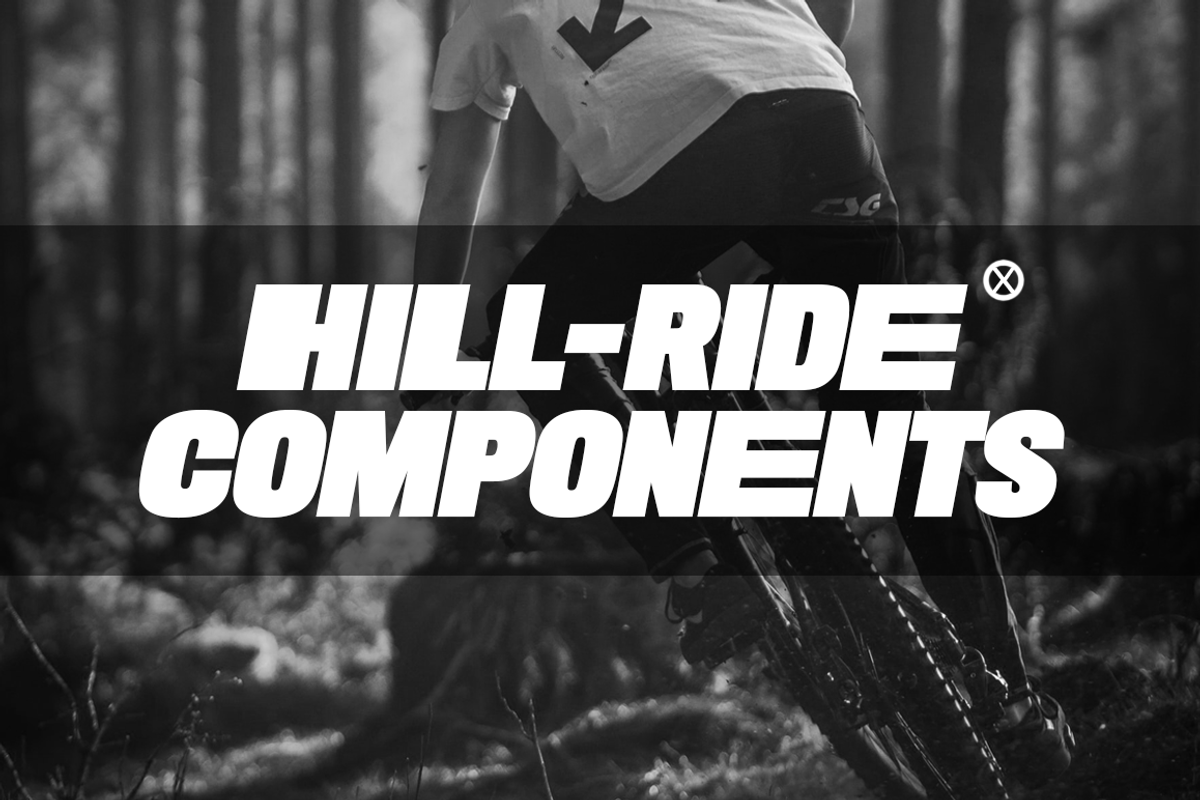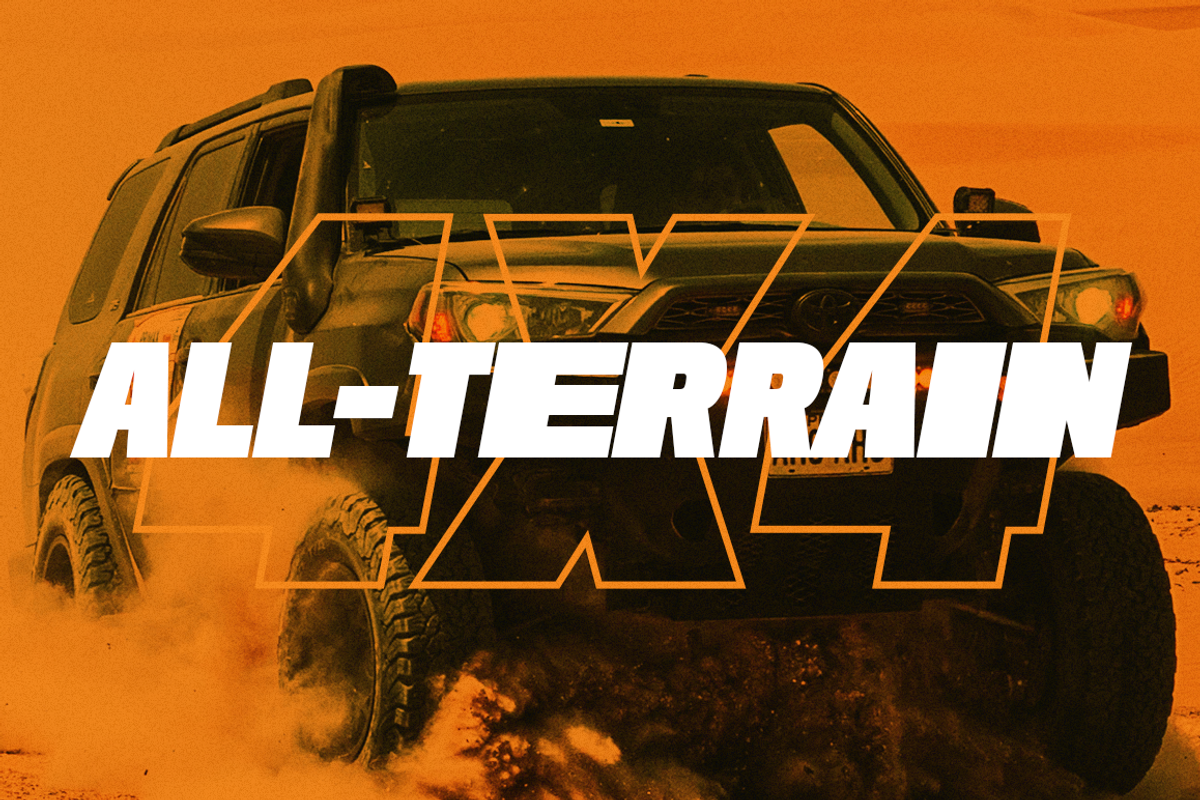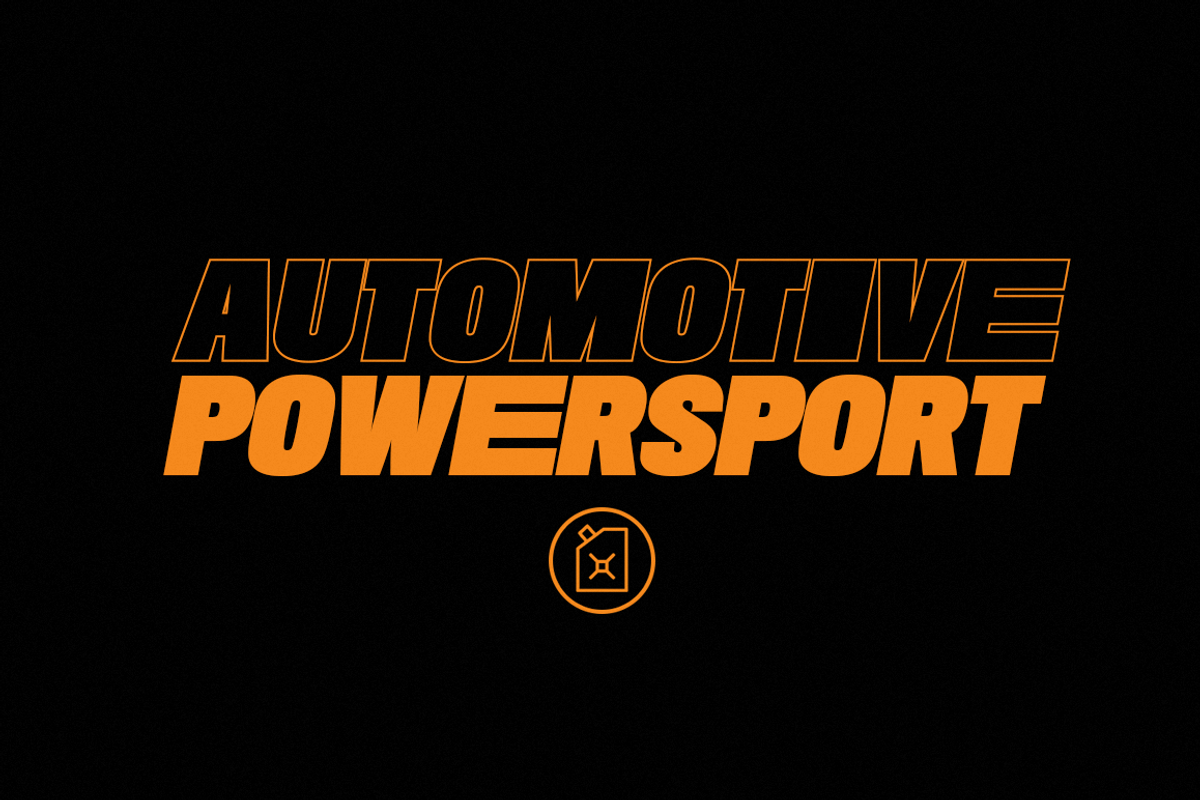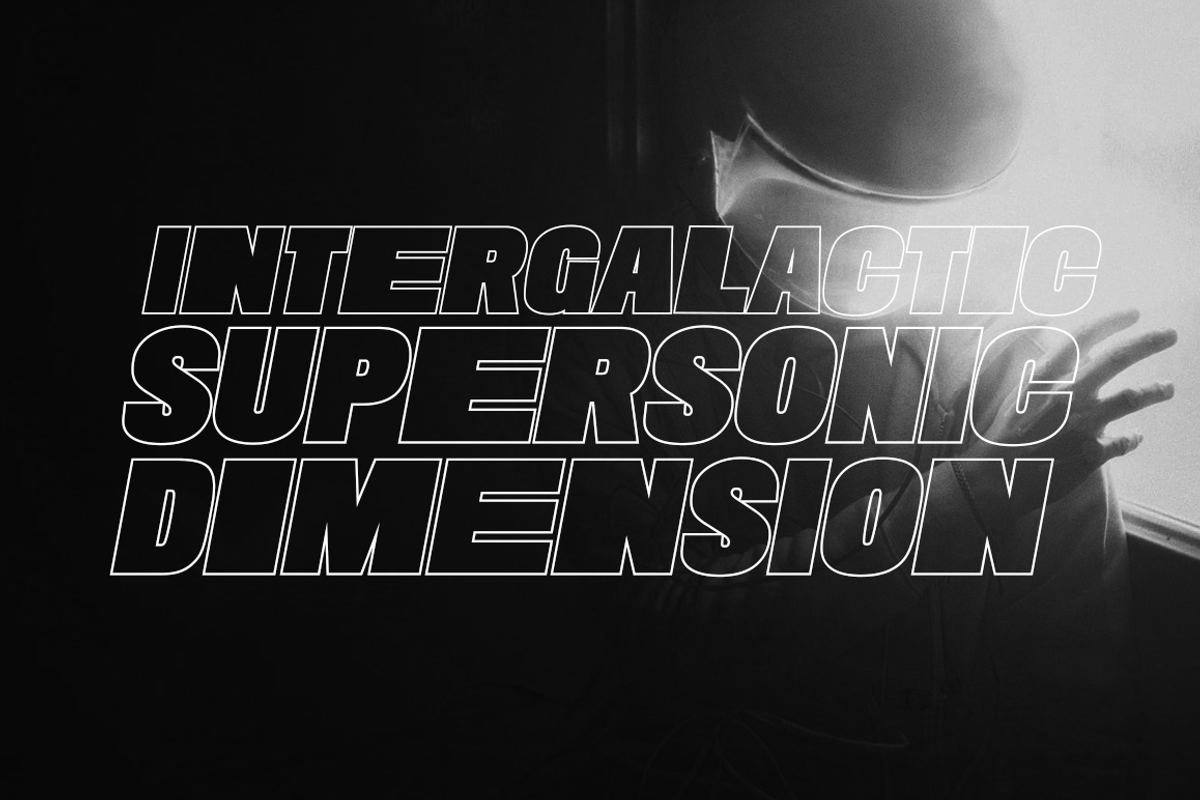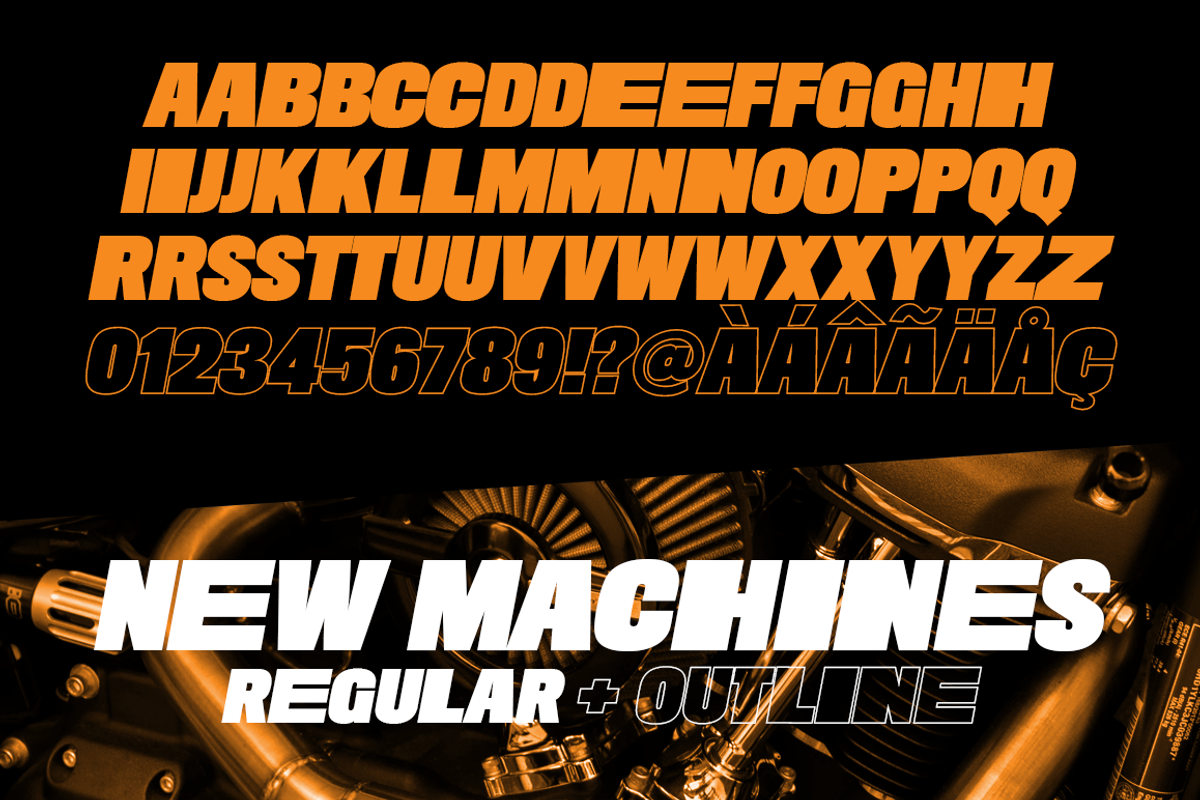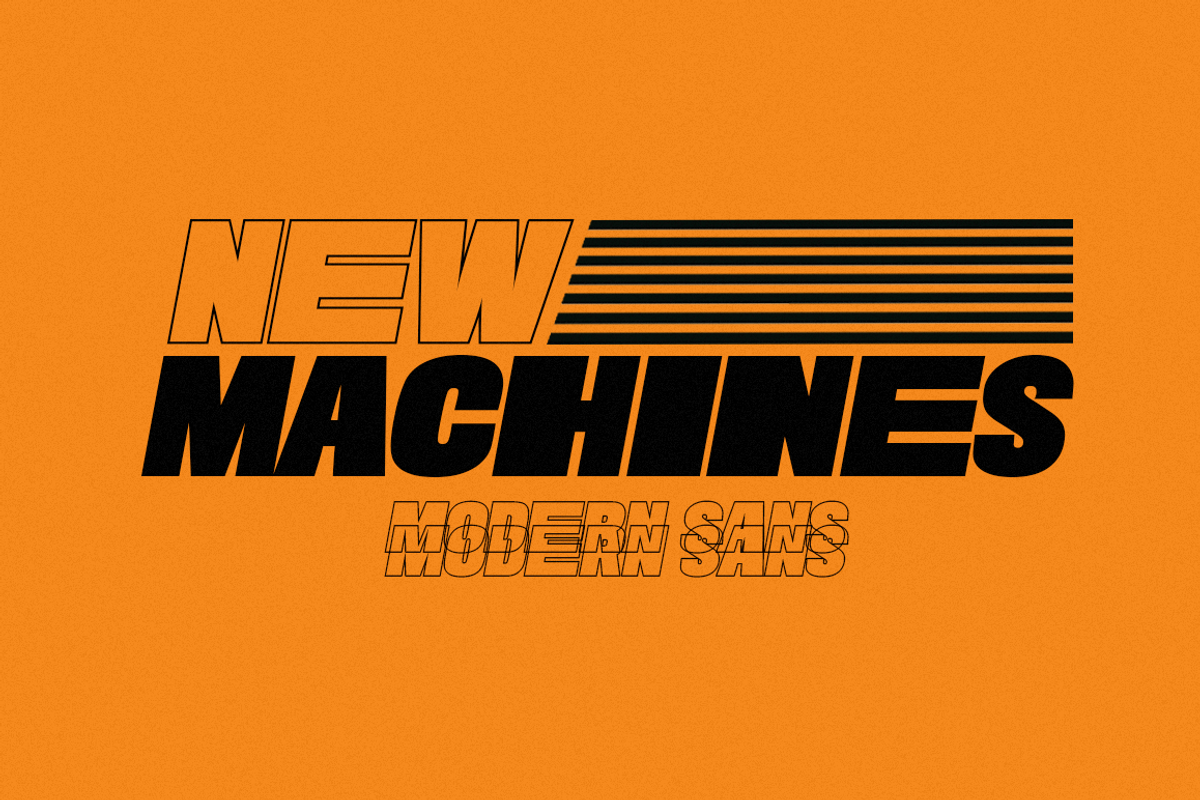
New Machines - Modern Sans
A ready to use Sans Serif with extended looks. The trendy-looking glyphs are very easy to access. No need of technical skill and applications. Just install the font and type it over your designs and documents. Toggle shift key to access the alternates. A hassle-free Modern Typeface! Includes both Regular and Outline versions.